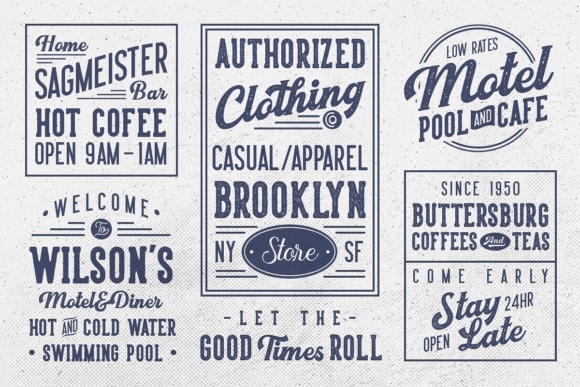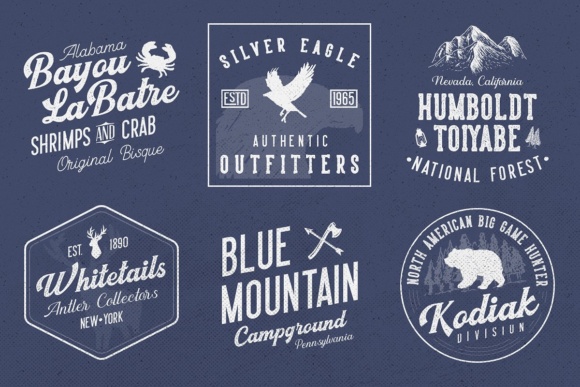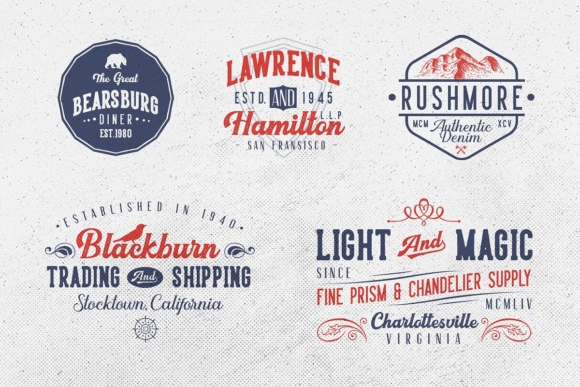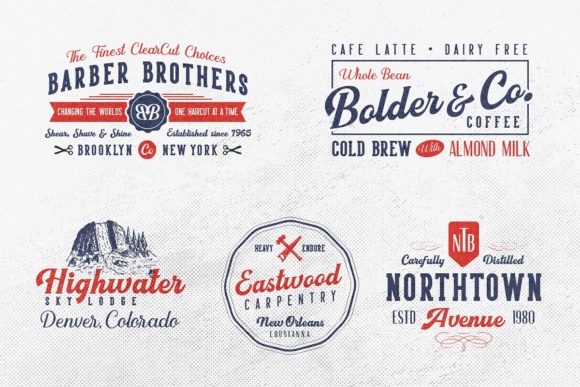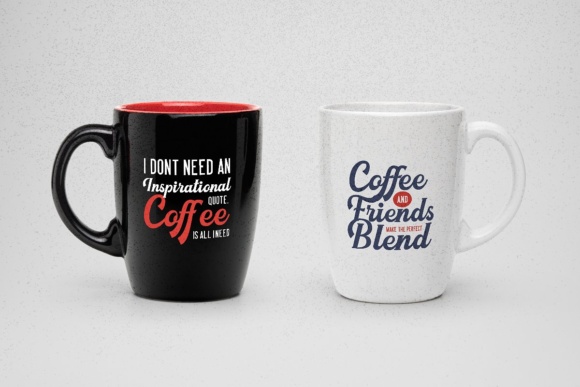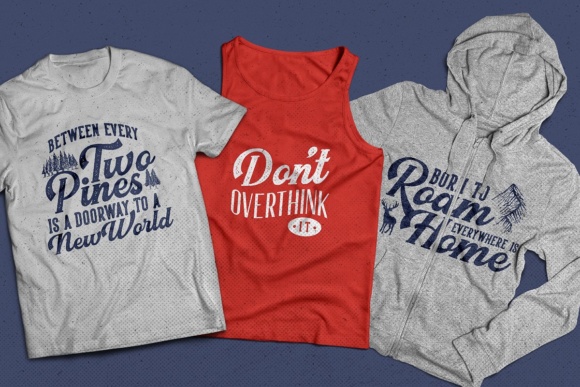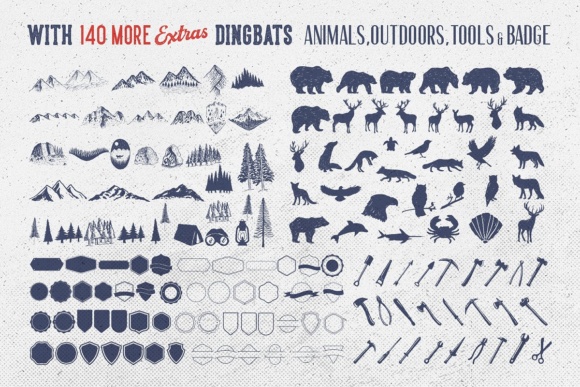
Harsey Font
About Harsey Font
This product consist of many styles such as script, sans, serif, and also includes dingbats, catchwords and badges which all come in font format. This product also includes 20 pre-made badges/labels which all are still editable so you can simply create your own in just a sec. What makes this product even more special is you can use and combine all these fonts perfectly matched altogether.